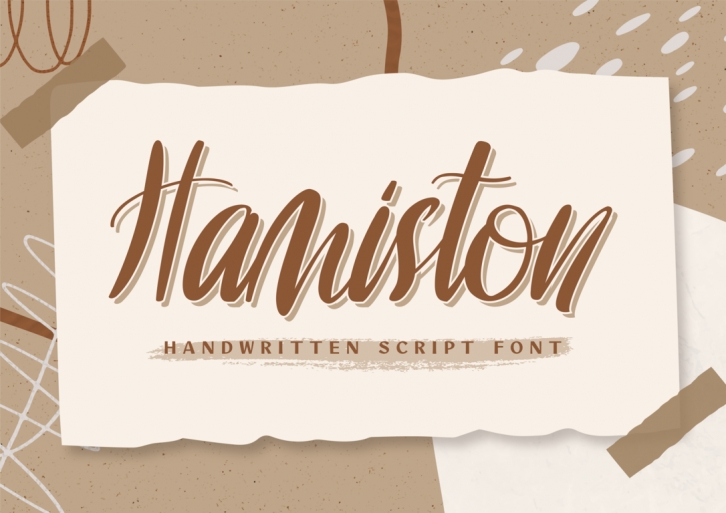
Hamiston is a sleek and elegant handwritten font that gives off cool, exquisite vibes. Add it to your most creative projects, and watch how it makes them come alive!